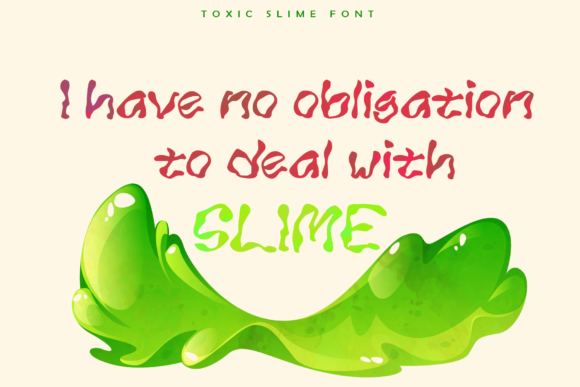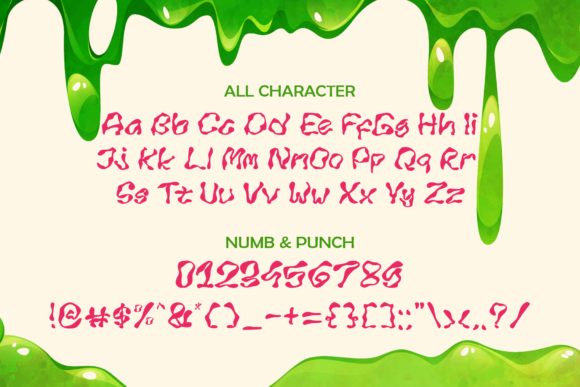
Toxic Slime Font
db-ku.com - Script & Handwritten -- “Toxic Slime” is a handwritten font with a unique texture and a distinct special touch, it was inspired by slime.